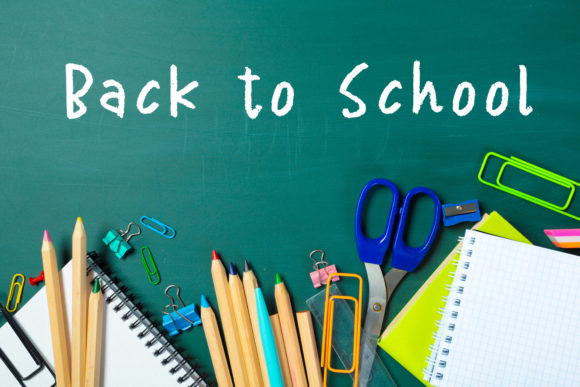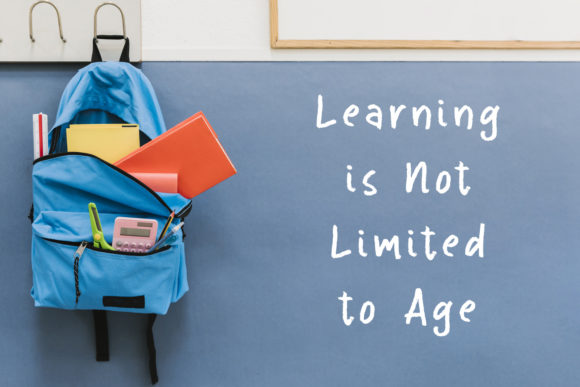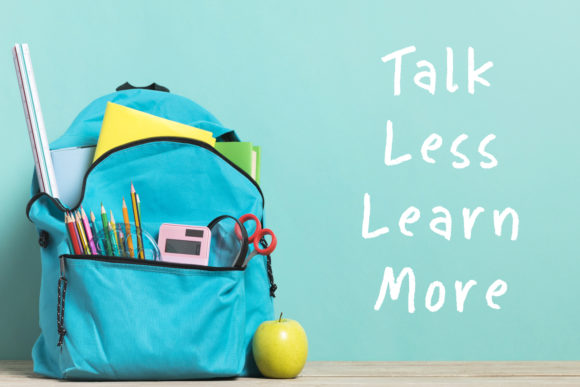
Greatest Holiday is a cute and colorful display font.
It embodies playfulness and authenticity and is the perfect choice for any children activity or school project Add this chunky lettered font to your designs and notice how it makes them come alive.
Greatest Holiday Font offers exceptional quality and versatility, making it a valuable addition to your design toolkit. Whether you’re creating for personal projects or commercial use, Greatest Holiday Font delivers professional results.